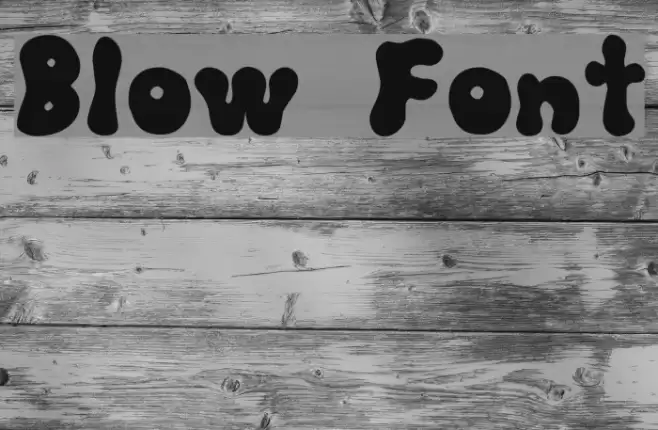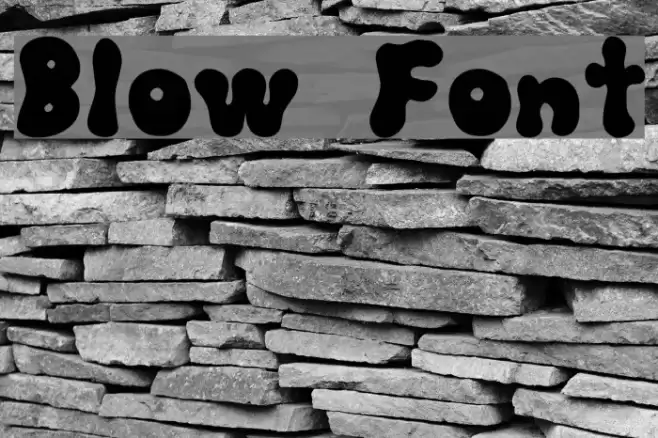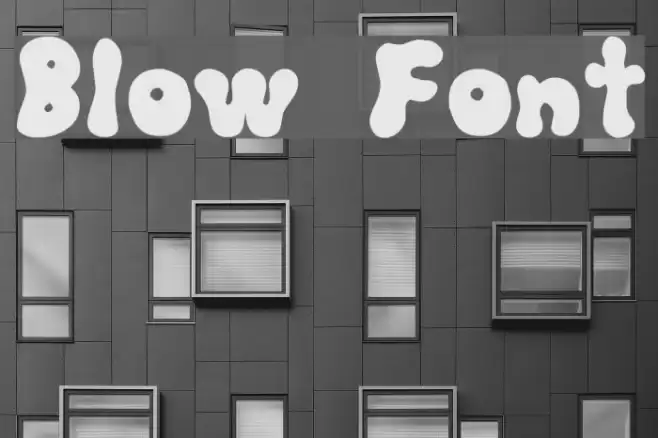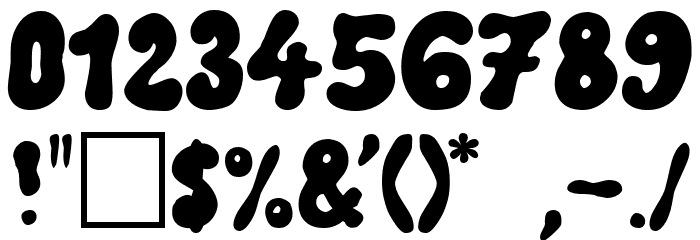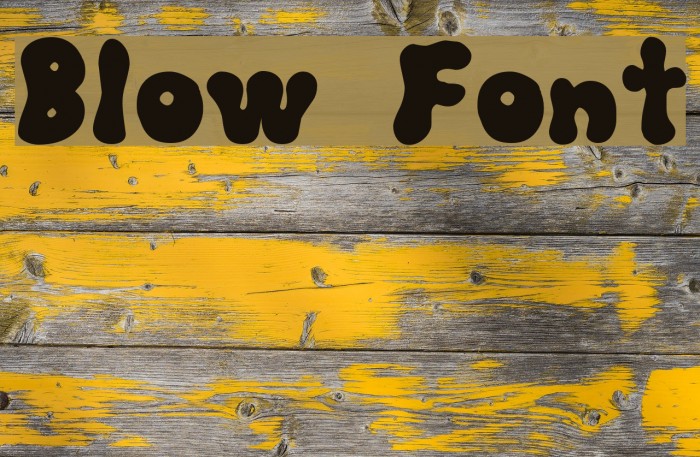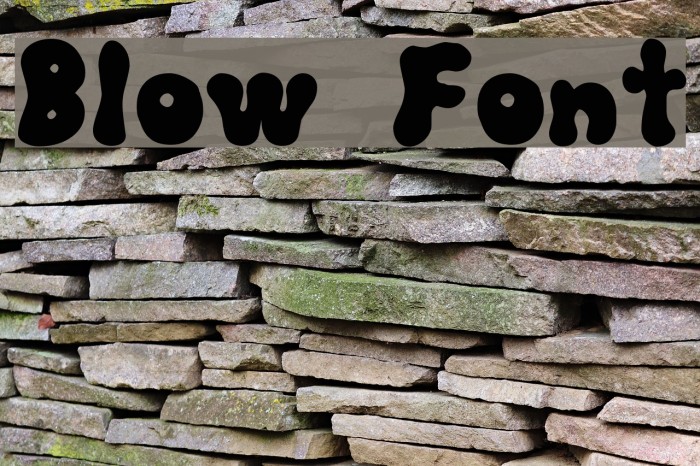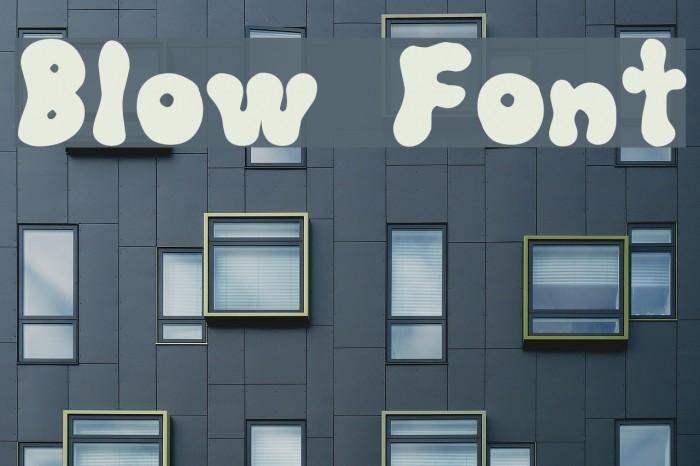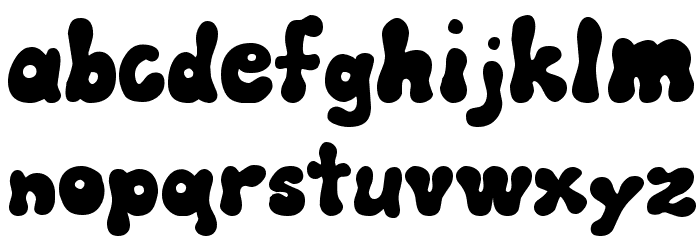
Blow Font
Blow Description
This font is characterized by its bold, playful, and bubbly appearance, reminiscent of inflated balloons or cartoonish shapes. Each letter and number is rounded and thick, creating a sense of fun and whimsy. The characters have a consistent thickness throughout, with no sharp edges or angles, contributing to a soft and approachable aesthetic. The font maintains a uniformity in its design, with each character appearing as if it is part of a cohesive set. This style is particularly eye-catching and is likely to stand out in any design project.
A bold, playful, and bubbly font with a cartoonish, balloon-like appearance from Uncategorized fonts.
- Proposed Projects: Ideal for children's books, playful branding, party invitations, or any project that requires a fun and whimsical touch.
- Overall Style: Playful, Whimsical